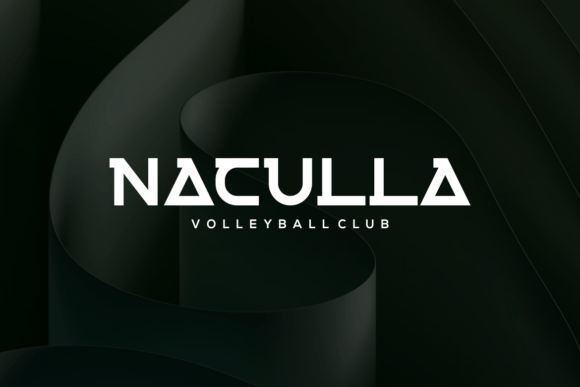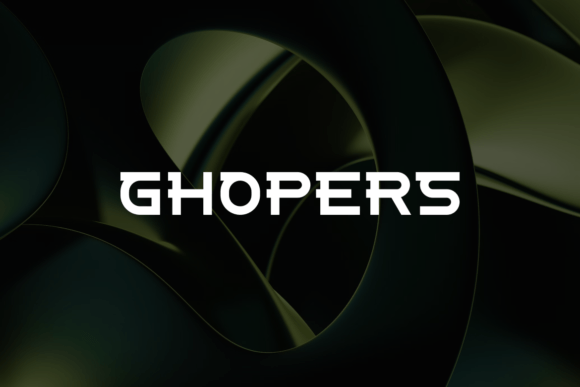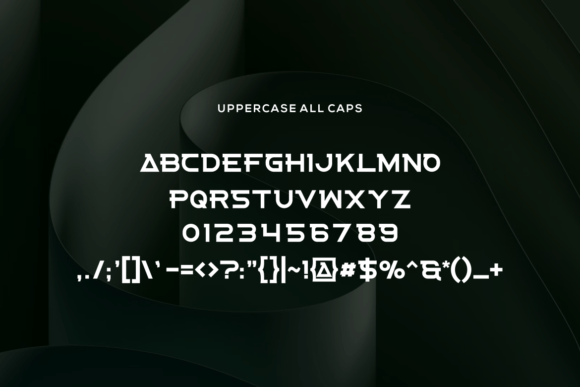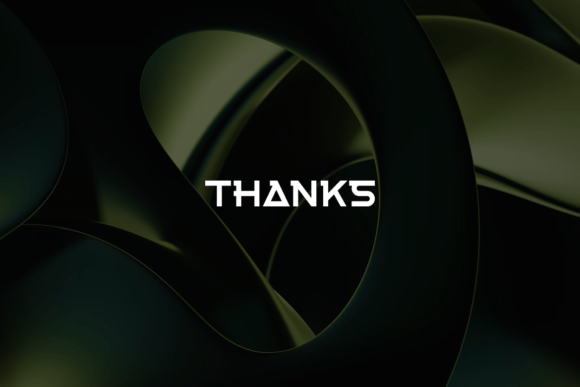
Ghopers Font: The Ultimate Choice for Bold and Distinctive Designs
In the world of typography, fonts play a crucial role in making or breaking a design. A well-chosen font can elevate a project from ordinary to extraordinary, while a poorly chosen one can have the opposite effect. For designers and crafters looking for a bold and distinctive display font, Ghopers Font is an excellent choice. In this article, we’ll explore the features and benefits of Ghopers Font and why it’s perfect for branding projects such as logos, sports themes, and more.
What is Ghopers Font?
Ghopers Font is a bold and eye-catching display font designed to make a statement. Its unique and distinctive style sets it apart from other fonts, making it perfect for projects that require a strong visual impact. Whether you’re working on a logo, sports theme, or any other branding project, Ghopers Font is sure to grab attention and leave a lasting impression.
Key Features of Ghopers Font
- Bold and Distinctive: Ghopers Font is designed to be bold and attention-grabbing, making it perfect for display purposes.
- Unique Style: Its unique style sets it apart from other fonts, ensuring your project stands out from the crowd.
- Versatile: Ghopers Font is versatile and can be used across various applications, from logos and sports themes to posters and more.
- Easily Readable: Despite its bold style, Ghopers Font is easily readable, making it perfect for headlines and titles.
Benefits of Using Ghopers Font
So, why choose Ghopers Font for your next project? Here are some benefits of using this amazing display font:
- Instant Recognition: Ghopers Font is designed to grab attention and create instant recognition, making it perfect for branding projects.
- Professional Look: With Ghopers Font, you can give your project a professional look that’s sure to impress.
- Customizable: Ghopers Font is highly customizable, allowing you to adjust its size, color, and style to fit your project’s needs.
- Time-Saving: With Ghopers Font, you can save time and effort in creating a unique and distinctive design from scratch.
Use Cases for Ghopers Font
Ghopers Font is a versatile display font that can be used across various applications. Here are some use cases where Ghopers Font shines:
- Logos: Ghopers Font is perfect for creating bold and distinctive logos that make a statement.
- Sports Themes: Its bold and energetic style makes Ghopers Font ideal for sports-themed designs, such as jerseys, posters, and more.
- Posters: Ghopers Font is great for creating eye-catching posters that grab attention and convey a message.
- Headlines: With its bold style, Ghopers Font is perfect for headlines and titles that need to make an impact.
Tips for Using Ghopers Font
To get the most out of Ghopers Font, here are some tips to keep in mind:
- Use it Sparingly: Ghopers Font is bold and attention-grabbing, so use it sparingly to avoid overwhelming your design.
- Pair it with Other Fonts: Experiment with pairing Ghopers Font with other fonts to create a unique and visually appealing design.
- Adjust its Size and Color: Adjust the size and color of Ghopers Font to fit your project’s needs and create visual hierarchy.
In conclusion, Ghopers Font is a bold and distinctive display font that’s perfect for branding projects such as logos, sports themes, and more. Its unique style, versatility, and ease of readability make it a great choice for designers and crafters looking to make a statement. With its instant recognition, professional look, and customizability, Ghopers Font is sure to elevate your project from ordinary to extraordinary.